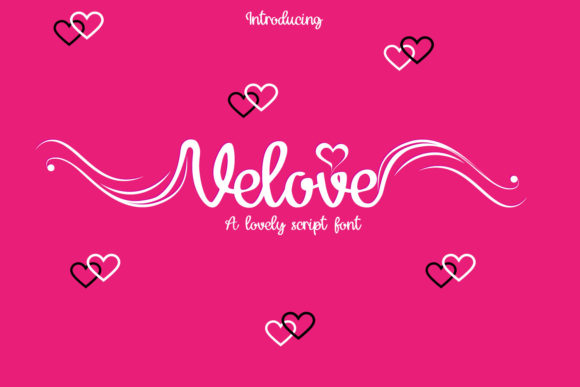
Prepare to be swept away by Velove Font, a script font that exudes elegance, sweetness, and a touch of romance. Its enchanting aura promises to transform your creative visions into captivating realities. Unleash your imagination and let Velove Font guide you on a journey of artistic exploration.
Velove Font: A Stroke of Enchantment for Your Design Palette
Velove Font is the epitome of sophistication, its every curve and stroke crafted with meticulous attention to detail. Its enchanting nature adds a touch of magic to any design, whether you're creating product labels, enchanting invitations, or heartfelt greeting cards.
Feel the Love in Every Letterform
Velove Font's graceful lines and flowing characters evoke a sense of love and affection. Its elegant presence adds a touch of charm to any project, capturing the essence of romance and heartfelt emotions. Let Velove Font carry your messages with grace and charm, leaving a lasting impression on your audience.
Ignite Your Creativity
With Velove Font, your imagination takes center stage. Its versatility knows no bounds, allowing you to explore a myriad of creative possibilities. From whimsical branding designs to captivating social media posts, Velove Font elevates your designs to new heights of allure and sophistication.
Embrace the Magic of Velove Font
Velove Font is more than just a font; it's an invitation to embark on a creative journey filled with enchantment and delight. Its romantic essence breathes life into your designs, captivating your audience with its enchanting allure. Experience the magic of Velove Font and let your creativity flourish like never before.